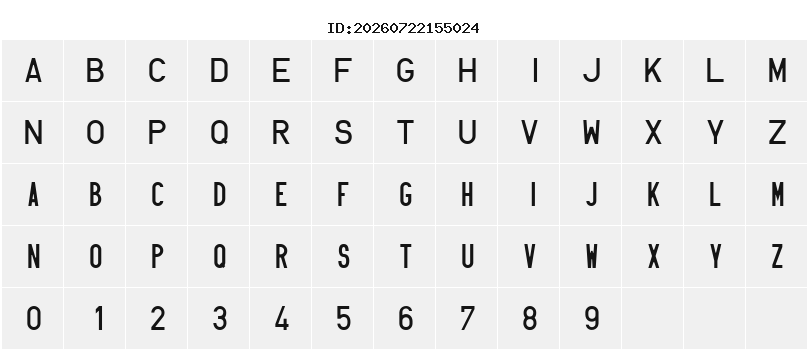
• Font Name: HUN-din 1451
About HUN-din 1451.ttf
HUN-din 1451.ttf is a modern, elegant sans-serif font designed for ultimate readability and visual harmony. Perfect for branding, headlines, web design, and print materials.